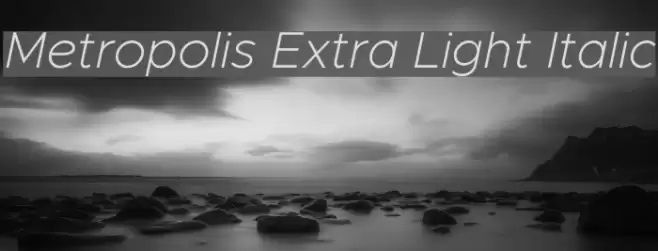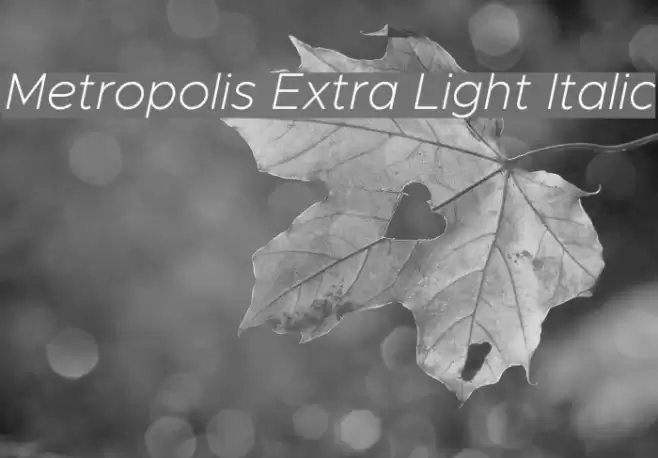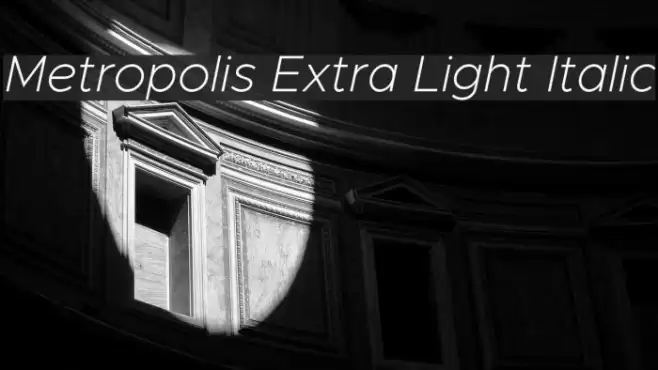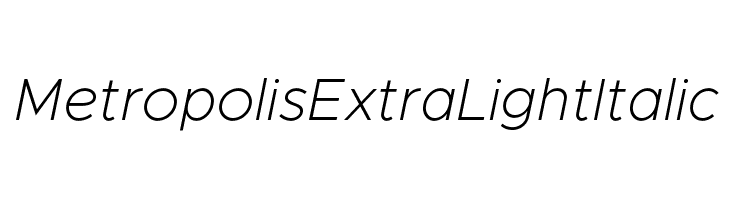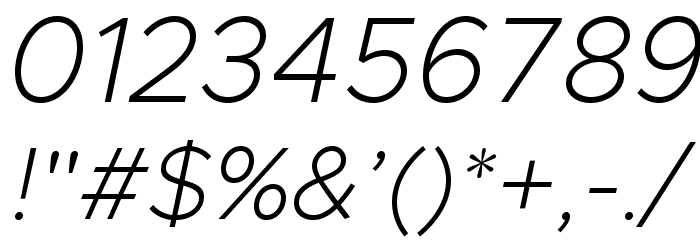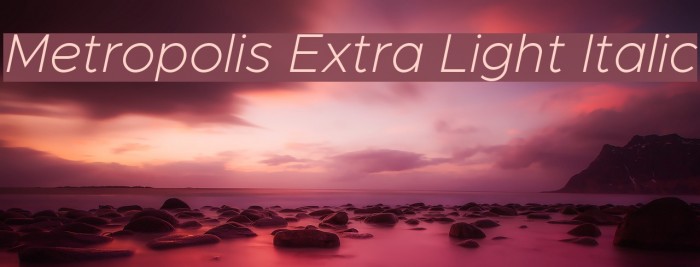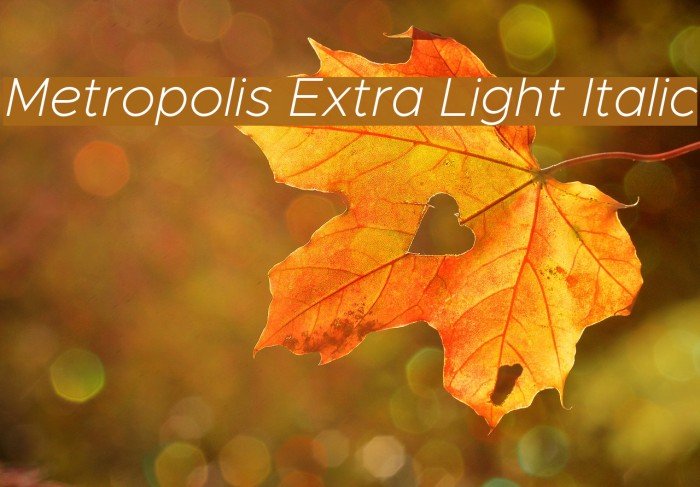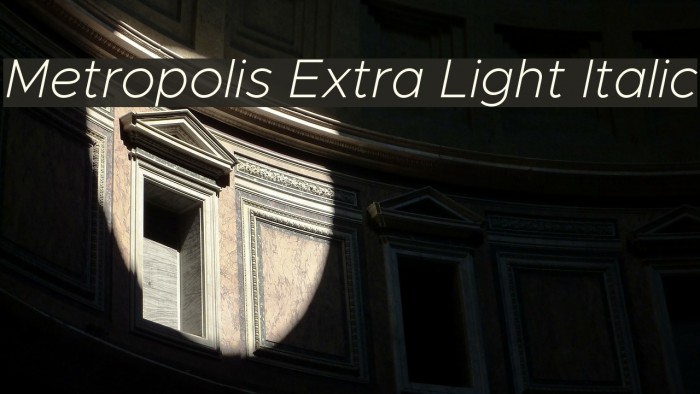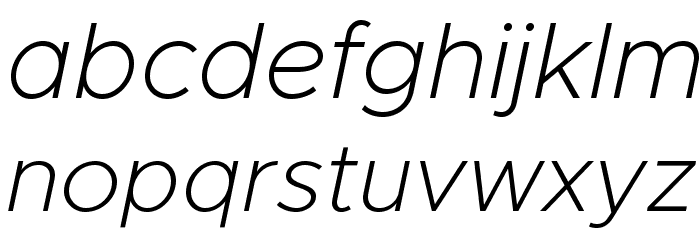
Metropolis Extra Light Italic Font
Metropolis Extra Light Italic Description
This font features a sleek and modern design with an extra-light weight and italic style. The characters are elegantly elongated with smooth curves and clean lines, giving it a sophisticated and contemporary appearance. The uppercase letters are tall and narrow, while the lowercase letters maintain a consistent flow with subtle slants. The numerals are streamlined, matching the overall aesthetic of the alphabet. Special characters are designed with the same minimalist approach, ensuring uniformity across all glyphs. This font's refined style makes it suitable for projects that require a touch of elegance and modernity.
A sleek, extra-light italic font with a modern and sophisticated design from Uncategorized fonts.